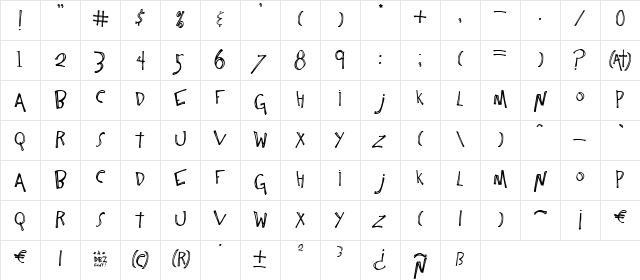
One Constant Regular Free Font
One Constant Regular
Foundry: [ Divide By Zero ] Fonts
Designer: Tom Murphy 7
Design Context for One Constant
One Constant is a composed and adaptable typeface that performs quietly and consistently across a wide range of design contexts.